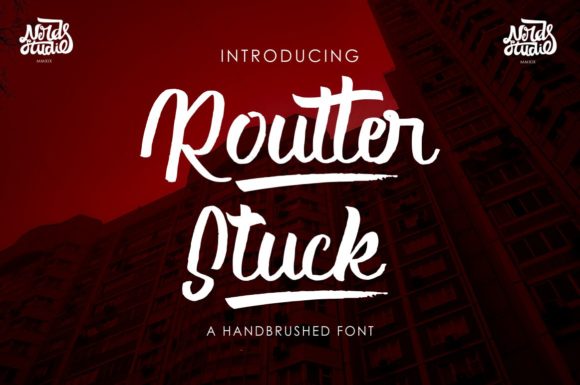
Introducing Routter Stuck - A Brush-painted Elegance for Small Screens!
In a world of digital clutter, your designs deserve to stand out with a captivating touch. Meet Routter Stuck, an exquisite script font family, crafted by the creative minds at Nerdstudio. Designed with precision and painted with an artistic flair, Routter Stuck is not just a font - it's an expression of artistry, perfect for leaving a lasting impression on your audience.
Navigate the Maze of Small Displays with Clarity and Style:
In the realm of small screens, legibility takes center stage. Routter Stuck's carefully crafted characters, adorned with unique and elegant touches, ensure that your words shine with clarity, even in the tightest of spaces. Whether it's a mobile app, a social media post, or a product label, Routter Stuck ensures your message is conveyed with grace and ease, leaving a lasting impact on your audience.
Unleash Your Creativity with Endless Applications:
Routter Stuck's versatility knows no bounds. Whether you're a seasoned designer looking to add a touch of charm to your logos, branding, or quotes, or a creative entrepreneur seeking a font that breathes life into your product packaging, Routter Stuck is your perfect companion. Its brush-painted style adds a human touch, evoking a sense of authenticity and connection with your audience, making it the perfect choice for creating designs that captivate and engage.
Make Your Designs Dance with Energy and Life:
With Routter Stuck, your designs transcend the ordinary and embrace an artistic symphony. Its unique and beautiful strokes, meticulously painted by hand, add a touch of vibrancy and movement to your creations. Say goodbye to static, lifeless text and embrace the dynamic energy of Routter Stuck. Let your words dance and flow with grace, drawing your audience into a world of visual enchantment.
Immerse Yourself in a World of Creative Possibilities:
Routter Stuck opens up a realm of creative possibilities, empowering you to craft designs that speak to the heart and ignite the imagination. Its script-like appearance lends a personal touch, inviting your audience on an intimate journey through your designs. Let Routter Stuck be your muse, inspiring you to create designs that touch the soul, leaving an indelible mark on the minds of your audience.